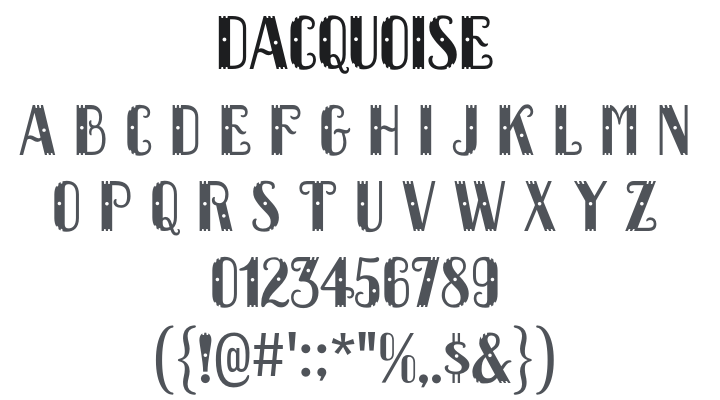
Dacquoise Font
About Dacquoise
Dacquoise is a charming Art Deco display typeface with bold, slightly condensed letterforms adorned with delicate curls, dots, and notches — like Parisian pâtisserie signage from the roaring twenties. Its elegant decorative touches give it a refined yet playful personality. Perfect for luxury packaging, wedding stationery, cocktail bar branding, fashion headlines, and any design calling for sophisticated vintage glamour.